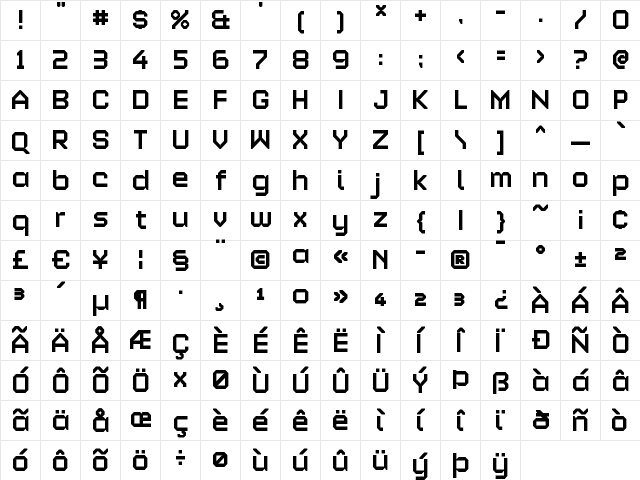
Alloy SemiBold
Design Context for Alloy Typeface
Alloy offers clean, dependable letterforms without strong stylistic allegiance, making it a practical choice for designers who need flexibility. Its bold stroke weight gives it real presence on the page.
Pro Tip: Use Alloy in both headline and body roles to test its range before committing to a single application.